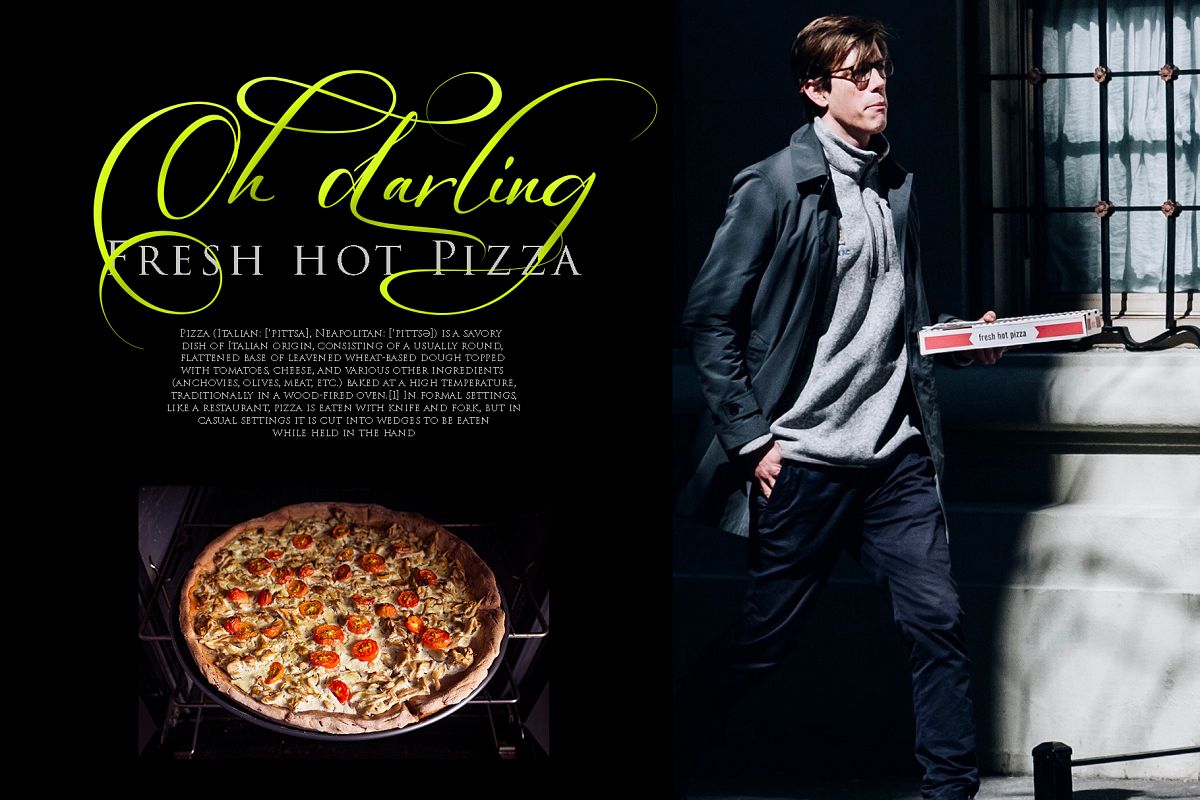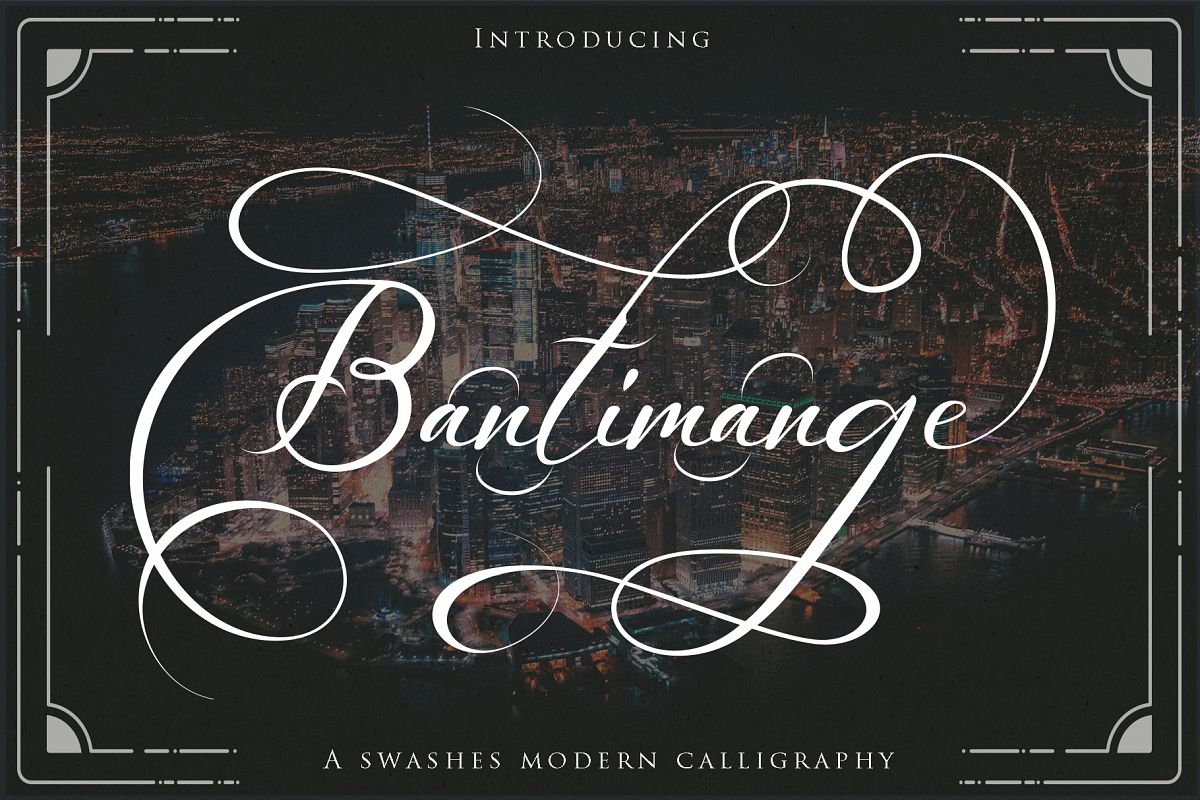
Bantimange script
Introducing Bantimange Script calligraphy an elegant new font! This font is specially created for those of you who need a touch of elegance to design your projects next with perfect results and amazing.Bantimange Script A very beautiful and interesting script, and comes with a perfect line for use for various purposes. Like titles, signatures, logos, correspondence, wedding invitations, letterheads, nameplate, labels, bulletins, posters, badges, Branding, Greeting Cards, etc.BantimangeScript is built with OpenType features and includes start and end. It comes with OpenType Stylistice set, Initial, swashes, ligatures and everything to add a touch to your design and also supports other languages :)What's Included